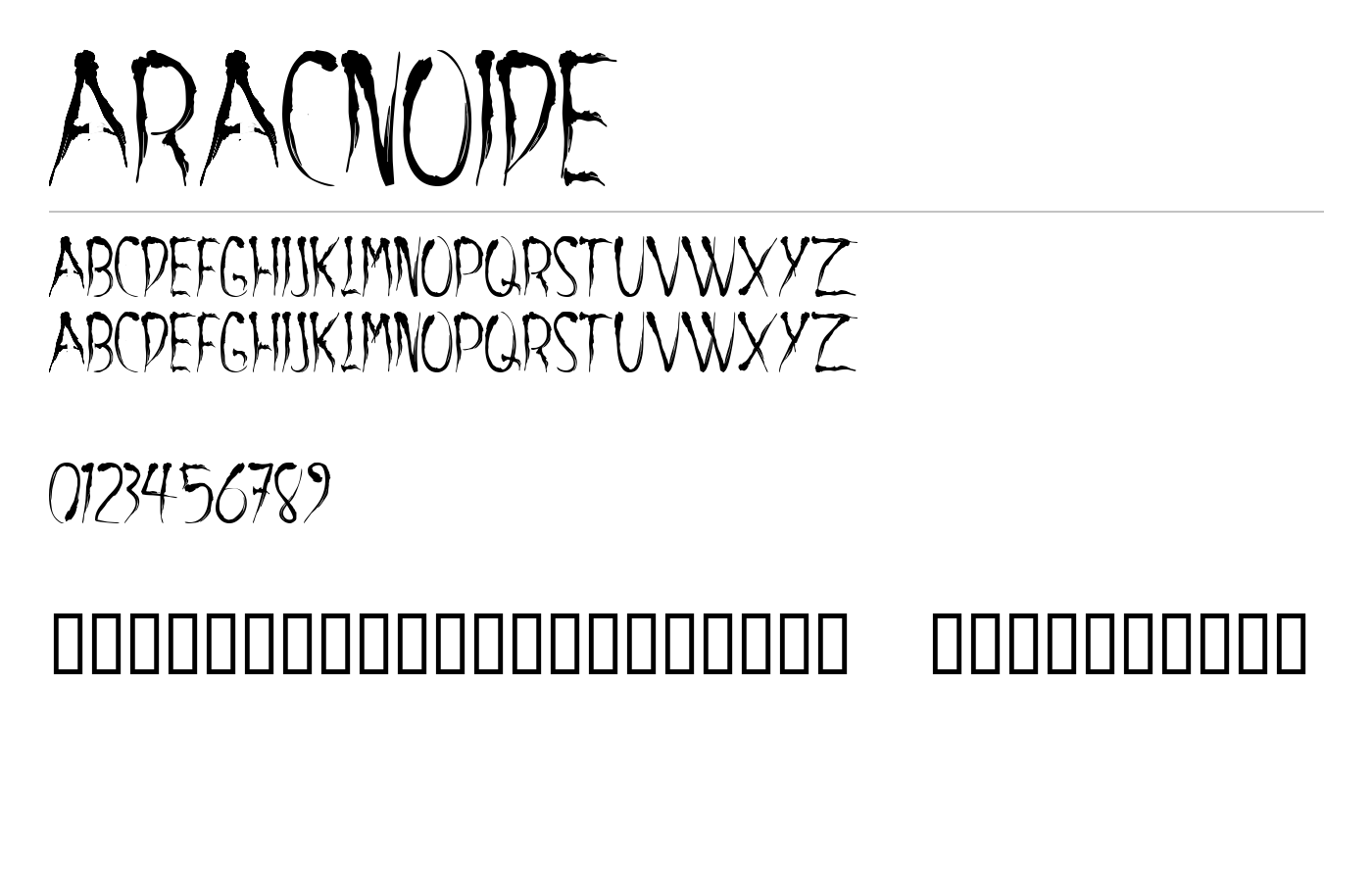
Aracnoide is an edgy, decorative sans serif font with a spooky, web-like texture that gives it a distinctive, eerie feel. With its irregular, sharp strokes and narrow shapes, it works great for Halloween themes, horror posters, or any design seeking a creepy, unsettling vibe. This font captures attention with its unique style, making it ideal for headlines, logos, and themed event graphics.
aracnoide Font
About aracnoide Font
| Font family | aracnoide Font |